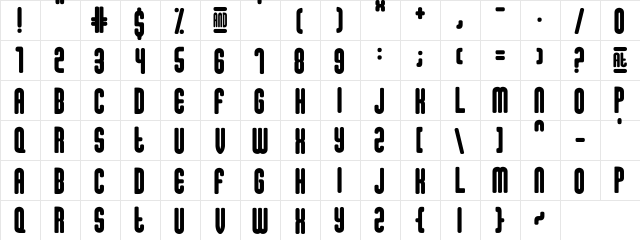
sugar regular
Design Context for sugar Typeface
sugar offers clean, dependable letterforms without strong stylistic allegiance, making it a practical choice for designers who need flexibility.